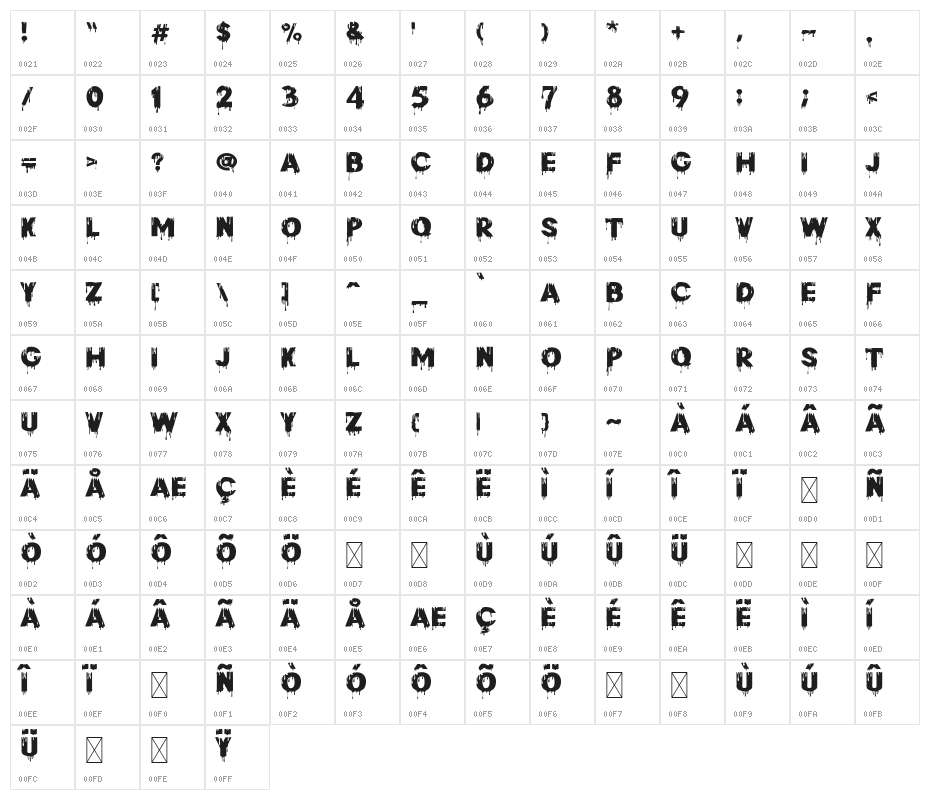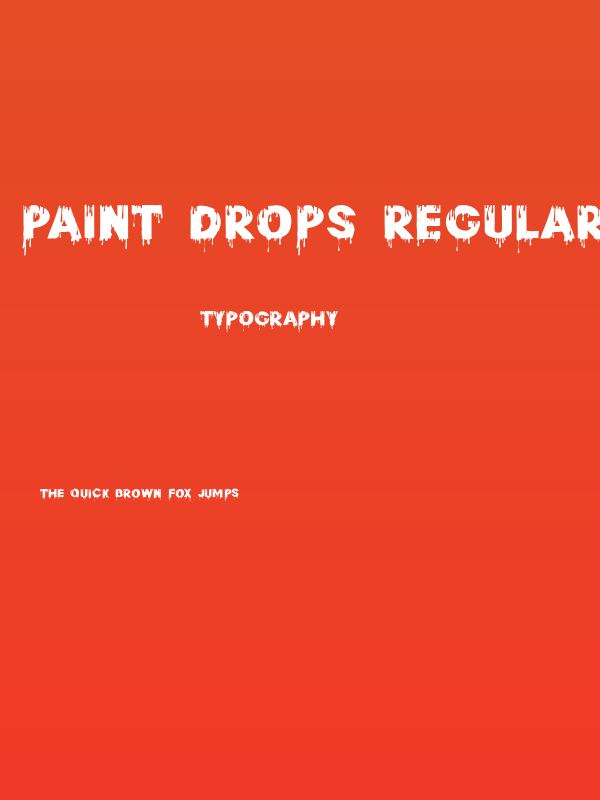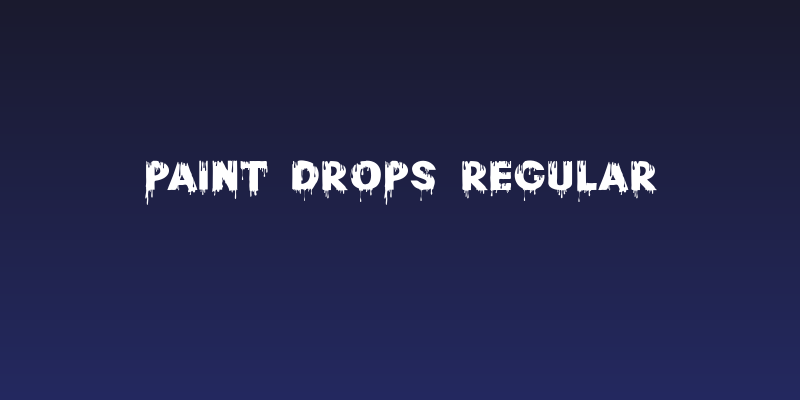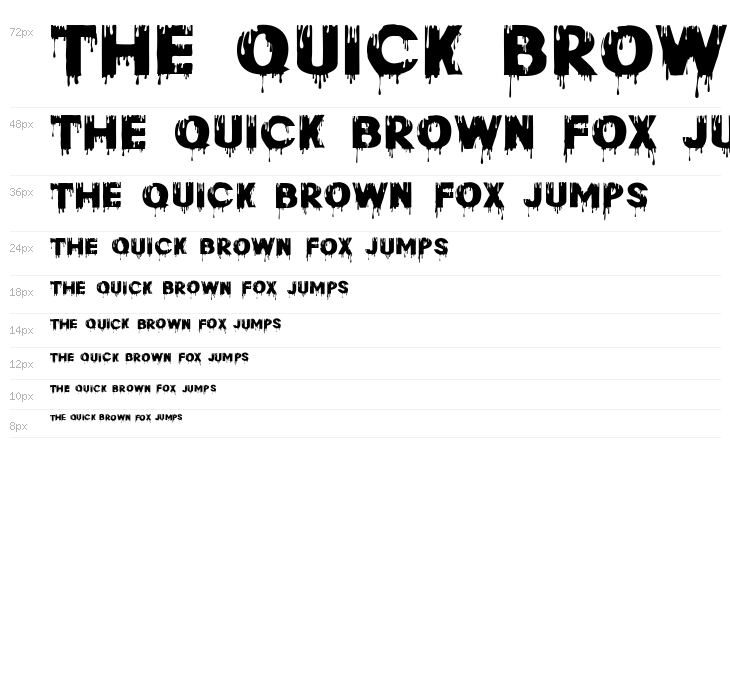
Paint Drops Regular Font
| Anwendungsfall | Headlines, Posters, Artistic Projects |
| Vorgeschlagene Projekte | Ideal for Halloween-themed designs, edgy posters, album covers, street art projects, and any creative work that requires a bold and artistic touch. |